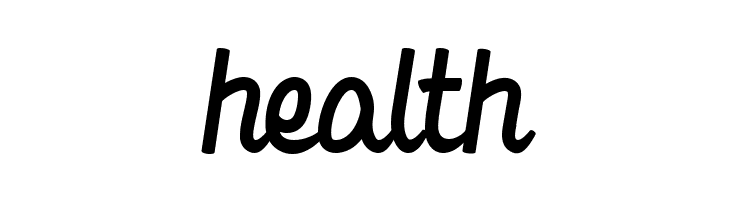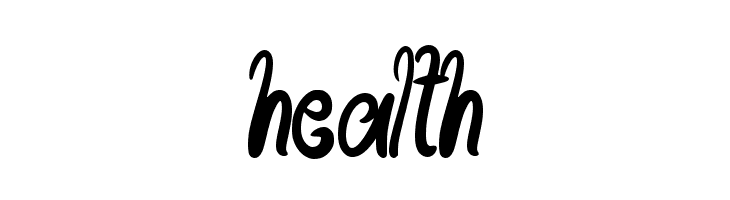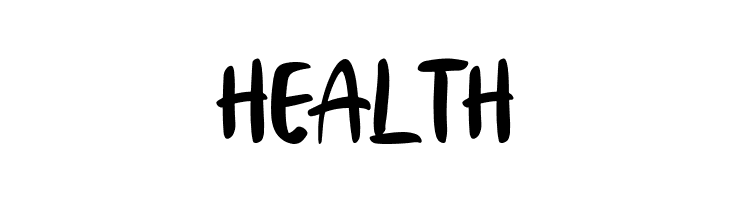
A playful and lively script font with flowing cursive letterforms.
A whimsical, hand-lettered script font with decorative swashes.
A modern, elegant script font with flowing, cursive letters and a sophisticated style.
A graceful and elegant script font with flowing, cursive letterforms.
A bold, dynamic script font with interconnected characters and dramatic flourishes.
A playful, whimsical font with flowing, cursive-like strokes.
An elegant and flowing script font with intricate loops and swirls.
A modern sans-serif font with geometric shapes and balanced proportions.
A bold, playful font with thick, rounded strokes and a strong visual impact.
A bold, 3D hand-drawn font with textured hatching and a playful, comic-like style.
A fluid and graceful script font with a handwritten touch.
A refined script font with elegant, flowing characters and delicate strokes.
Elegant handwritten script font.
A flowing, cursive font with elegant, interconnected strokes.
An elegant, flowing script font with smooth, cursive strokes.
A bold, expressive handwritten font with a brush-like texture.
A bold, playful font with a unique striped pattern and cartoonish style.
A playful, handwritten-style font with elegant, flowing lines.
A graceful and flowing script font with elegant cursive characters.
A flowing, cursive font with elegant, interconnected strokes.
A playful, bold handwritten font with a whimsical style.
A lively handwritten font with fluid and dynamic strokes.
A bold, cursive script font with dynamic, flowing strokes.
A playful, elegant handwritten font with a modern twist.
A bold, playful script font with flowing, energetic characters.
A bold, distressed font with a vintage, industrial feel.
A bold, geometric font with angular, futuristic design elements.
A bold, geometric uppercase font paired with elegant, cursive lowercase letters.
A bold, brushstroke-style font with a raw, artistic appearance.
A dynamic, brush-stroke font with an edgy, textured appearance.
A sophisticated script font with flowing, interconnected letters and ornate uppercase designs.
A bold, playful font with rounded, bubbly characters.
A bold, condensed font with high contrast and a modern, decorative style.
A dynamic and expressive handwritten font with fluid strokes and a natural flow.